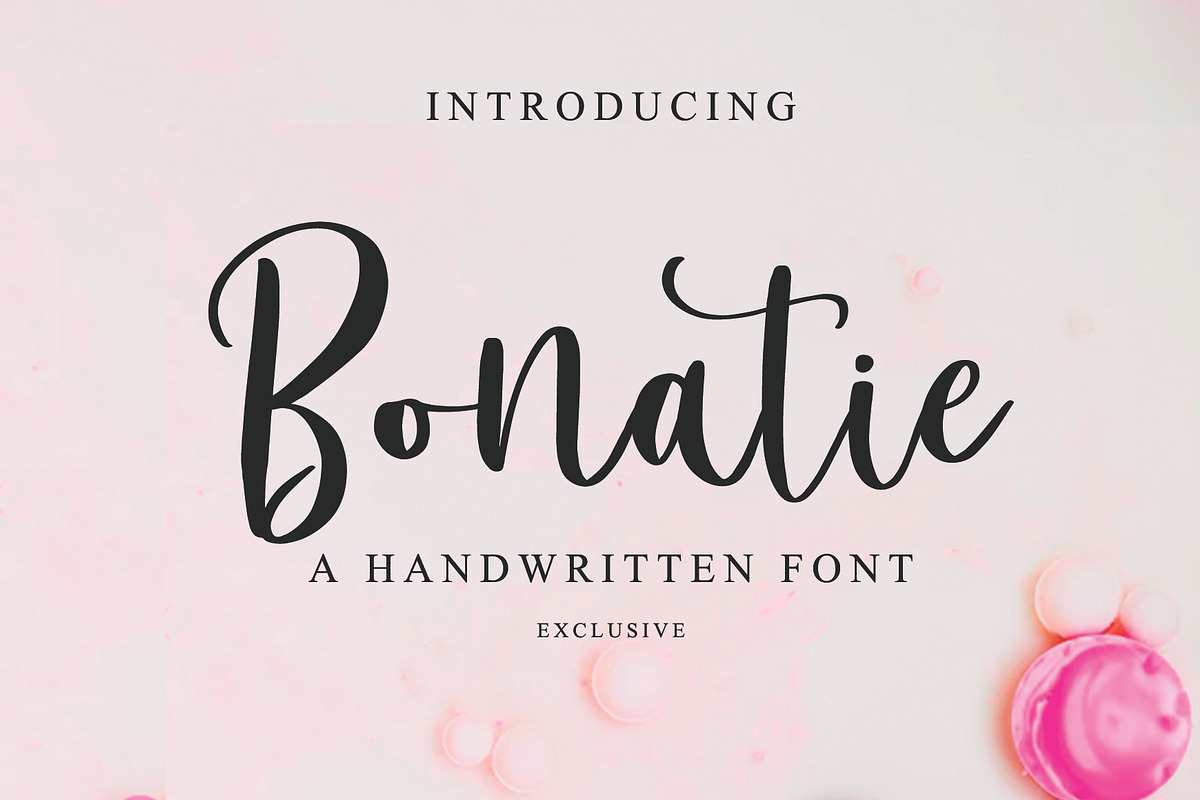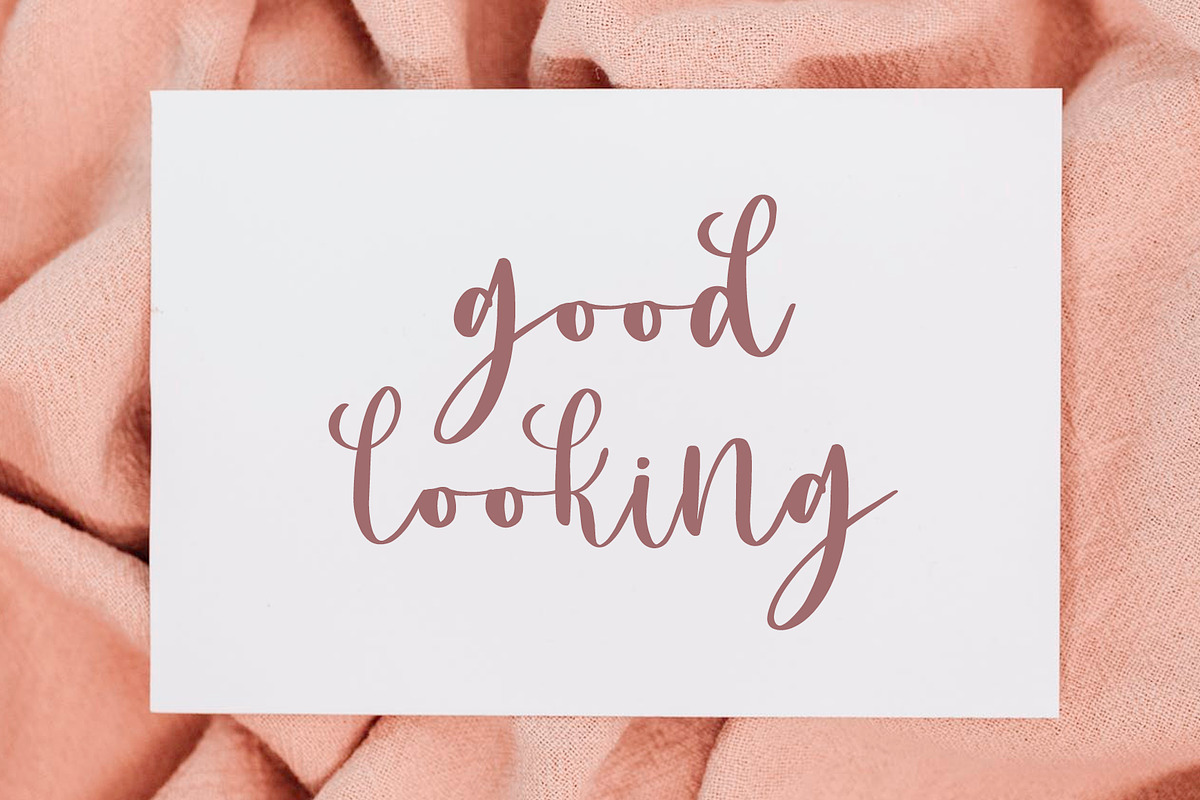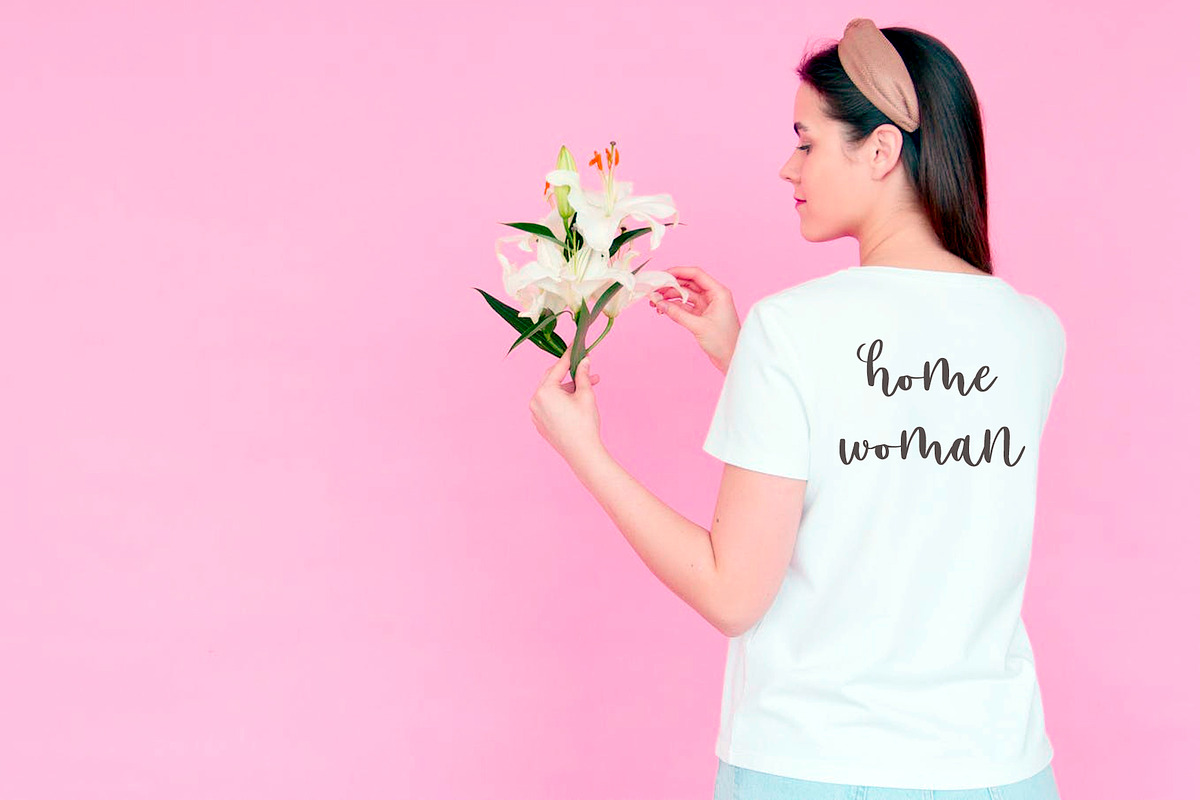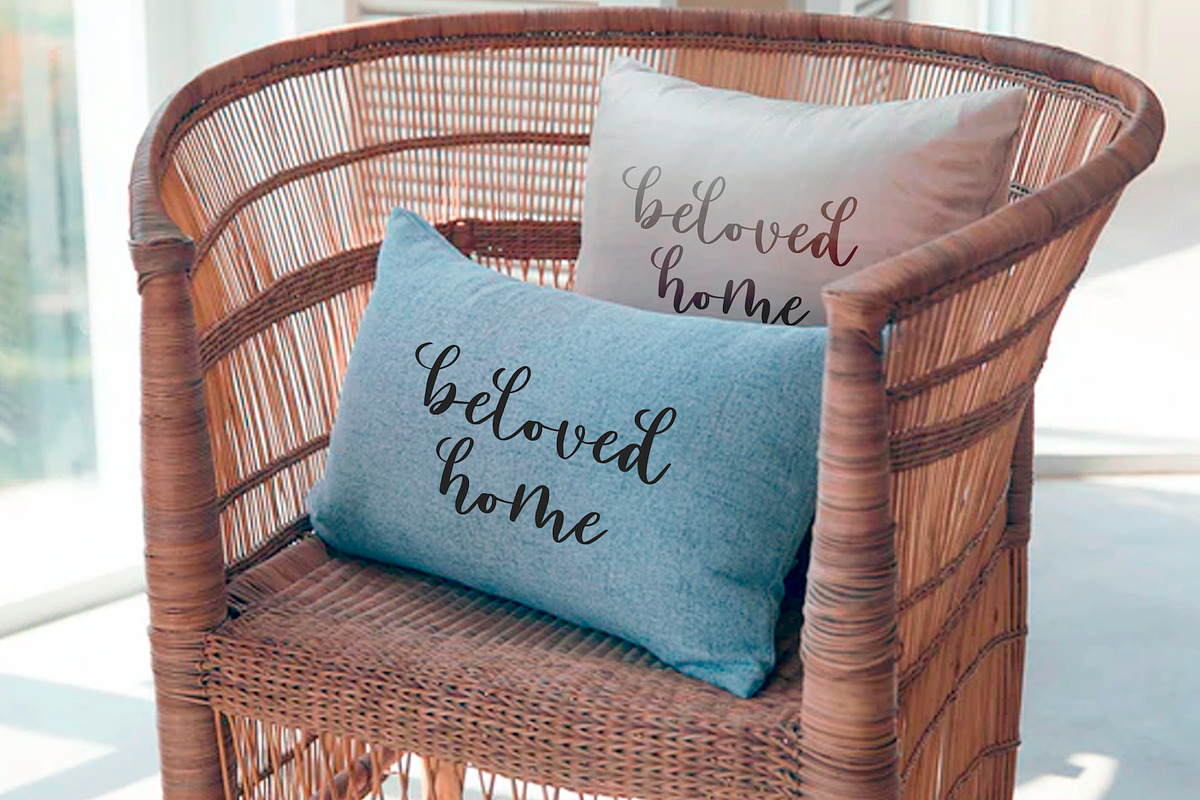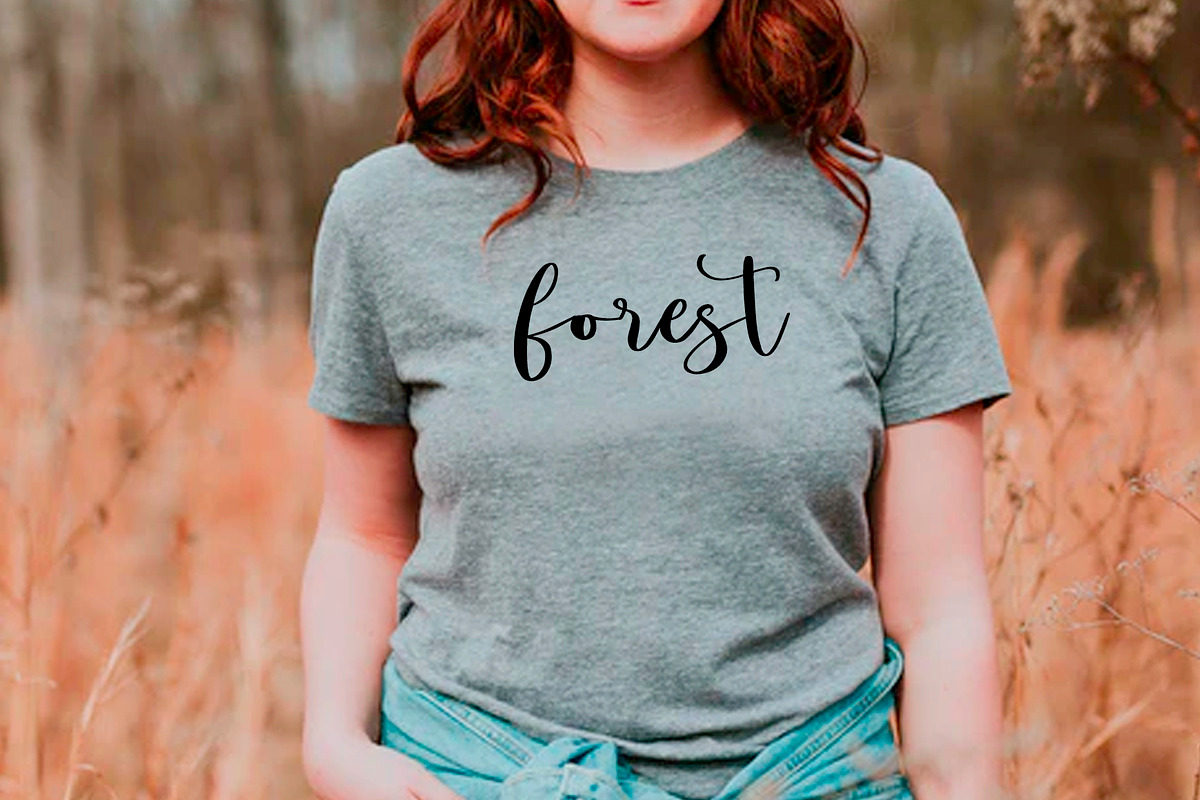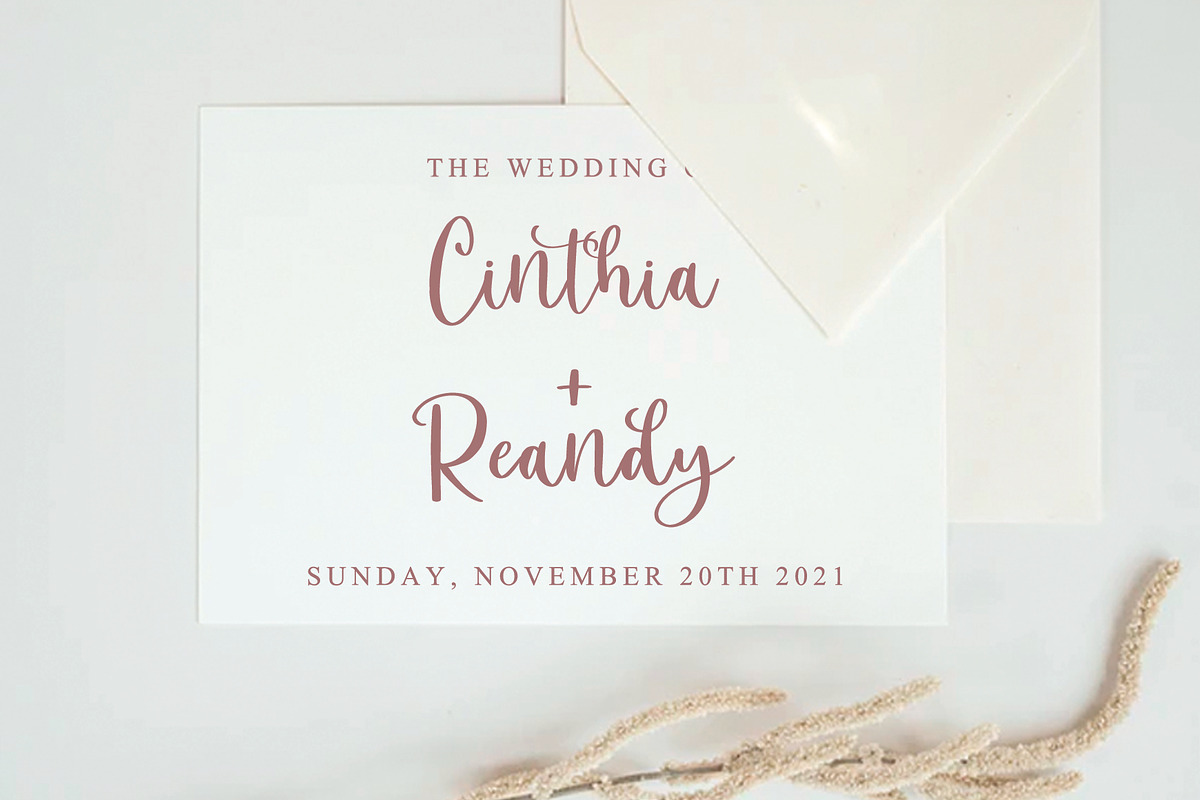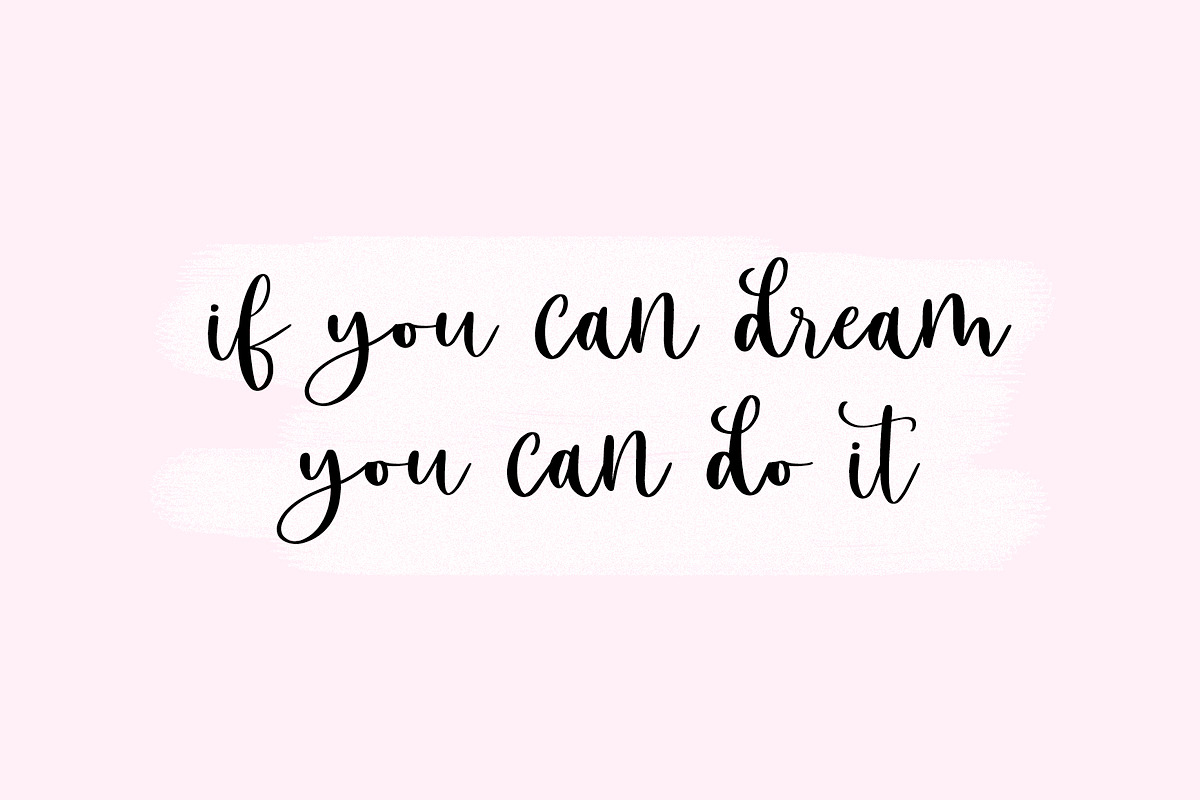
Bonatie Handwritten Font
Bonatie is a feminine and modern handwiritten font. It is perfect for elegant logos, T-Shirt, stationery, prints, branding, modern websites, wedding invites and cards. Bonatie includes full set of gorgeous uppercase and lowercase letters, numerals, a large range of ligatures and standard punctuation.